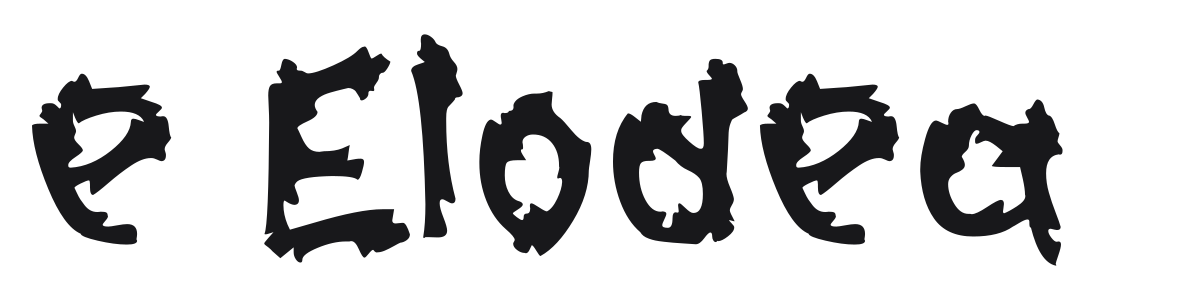
e Elodea
e ElodeaLicense is a heavily eroded display font where every stroke looks like it's been left out in the rain too long. The chunky forms are eaten away at the edges, giving each character a raw, decayed texture that reads as intense at headline sizes. It suits horror, metal, underground zines, and anything that needs to feel genuinely weathered.